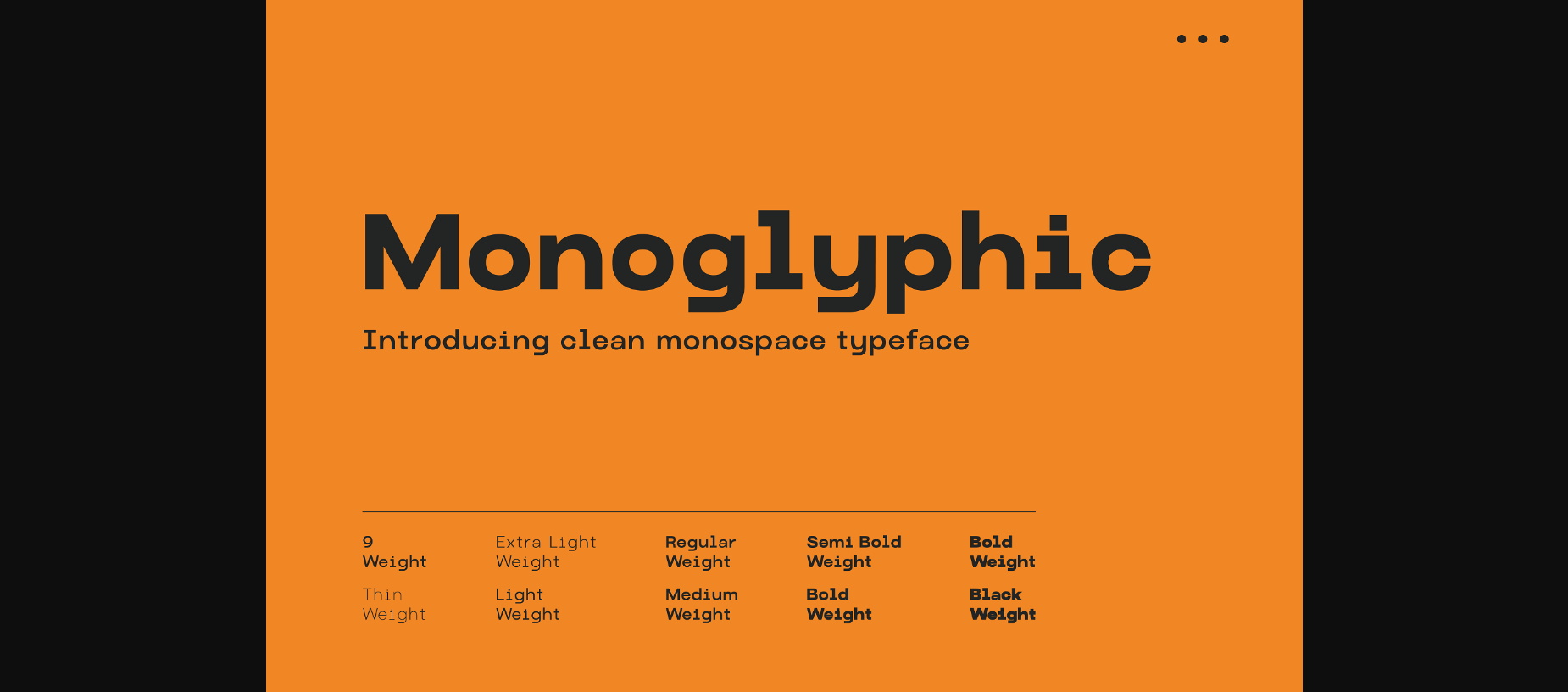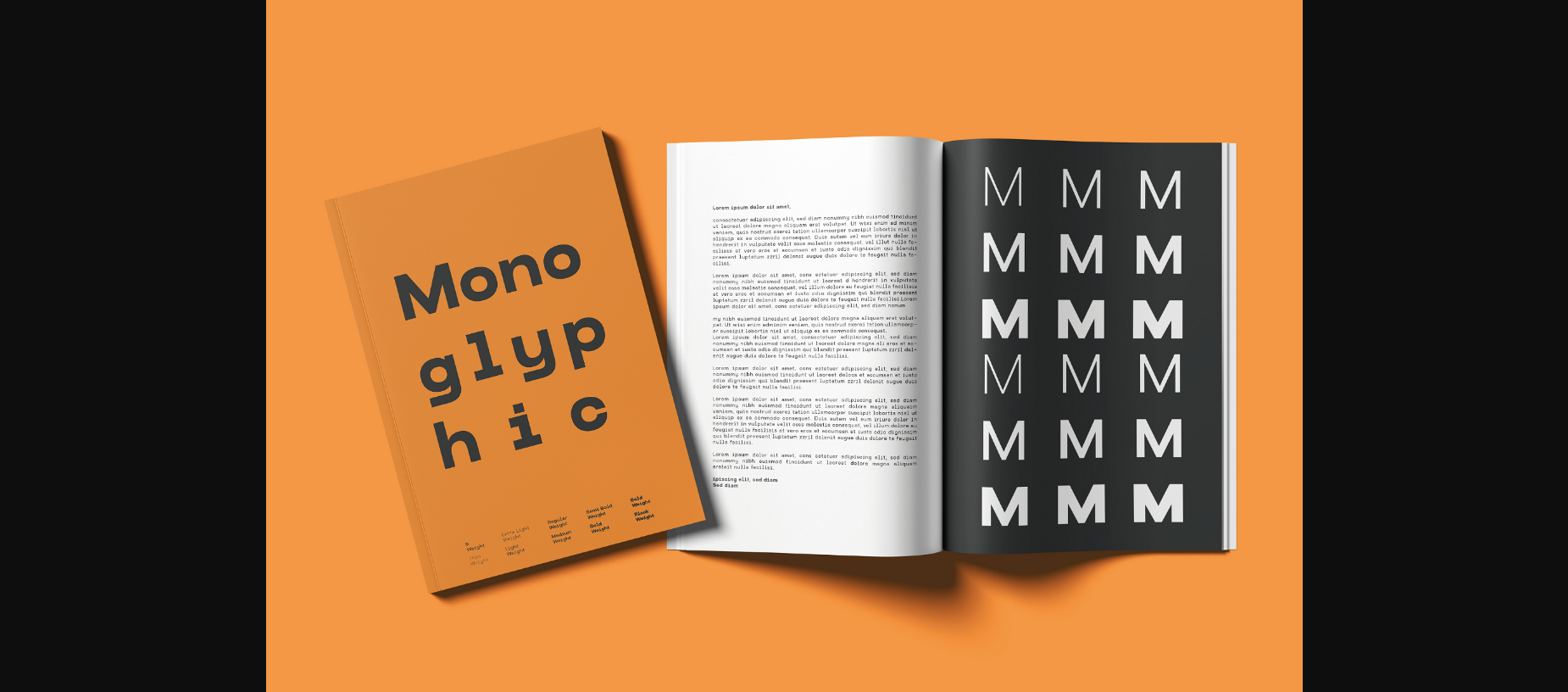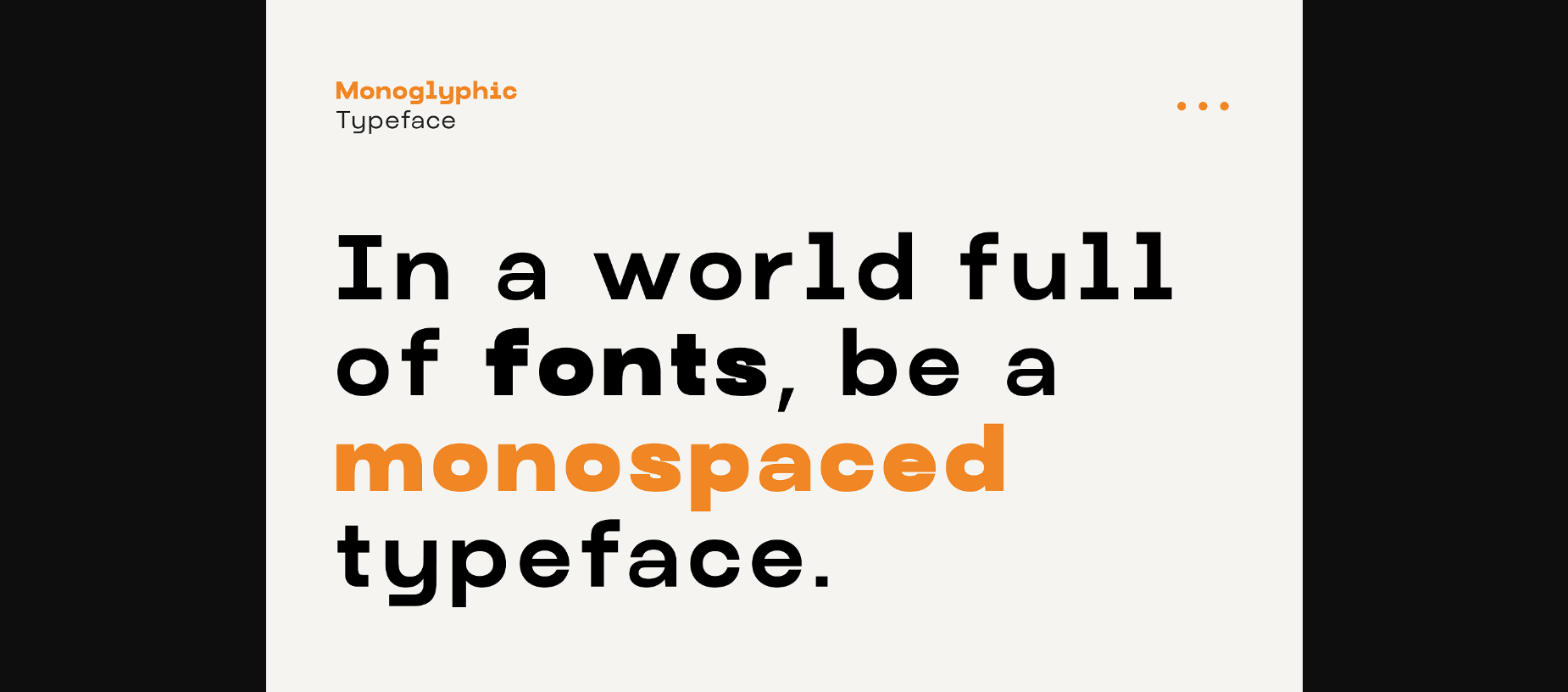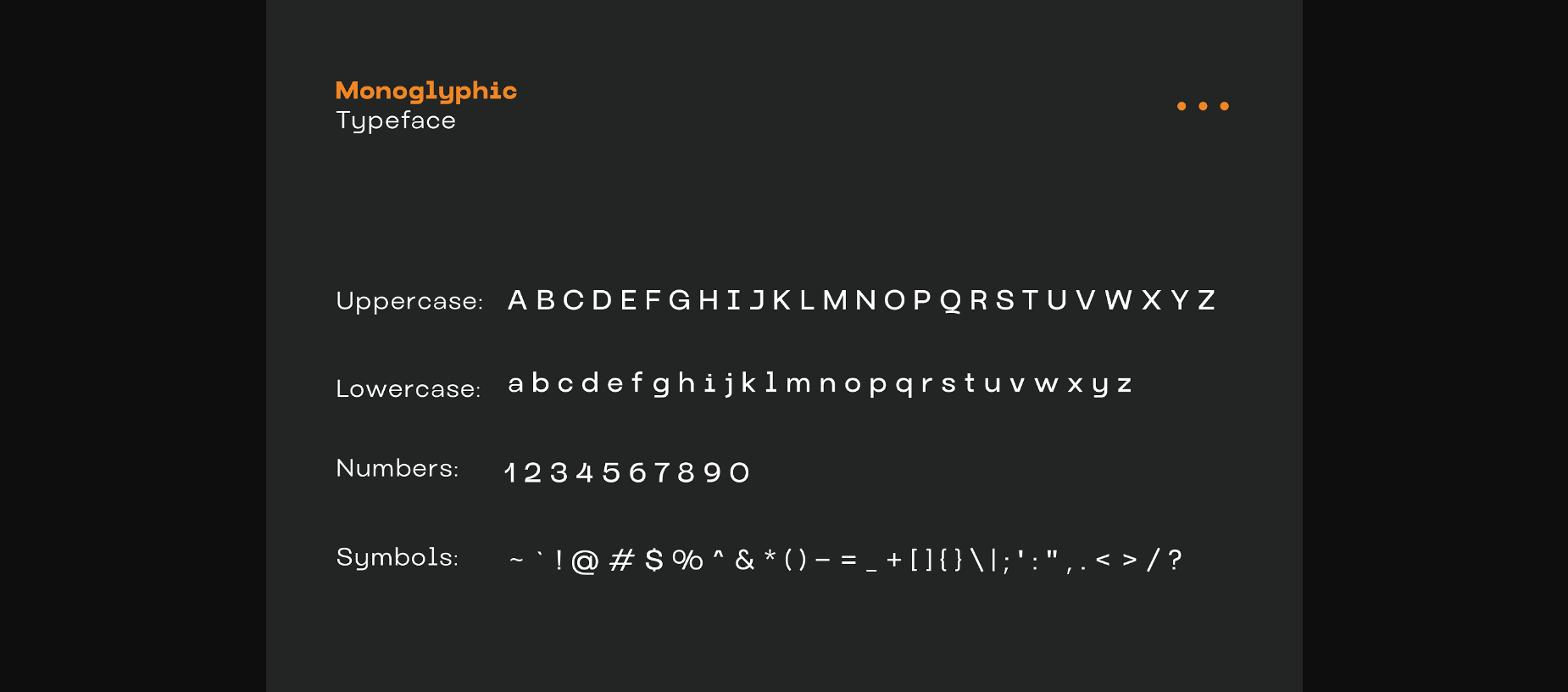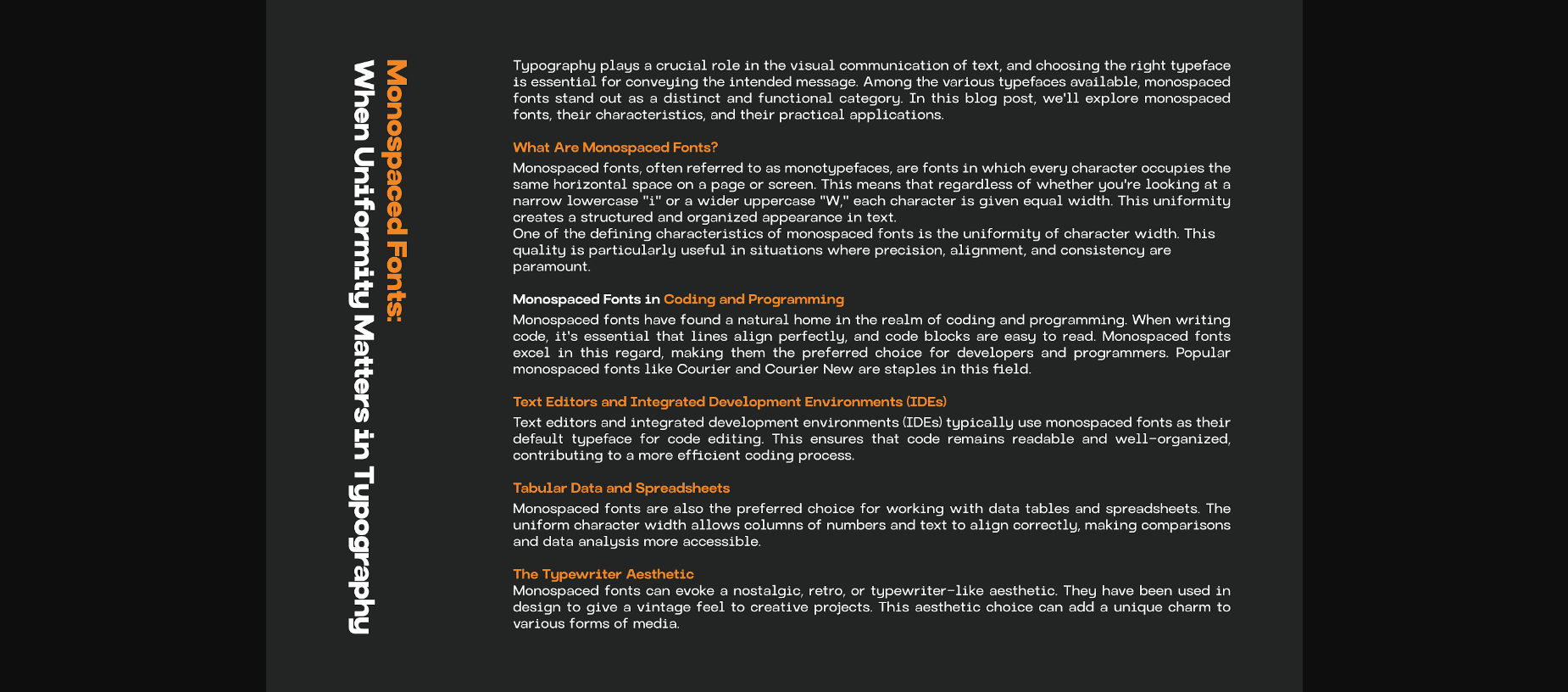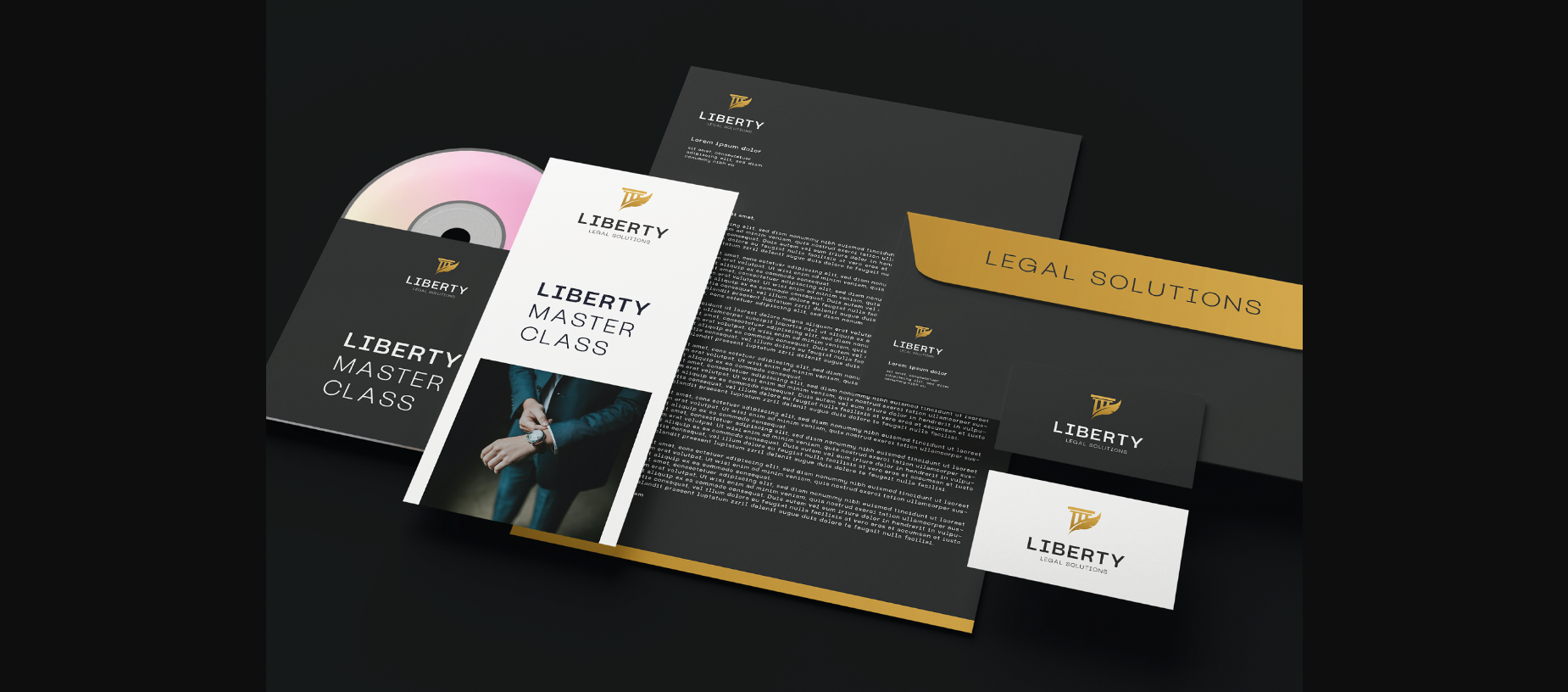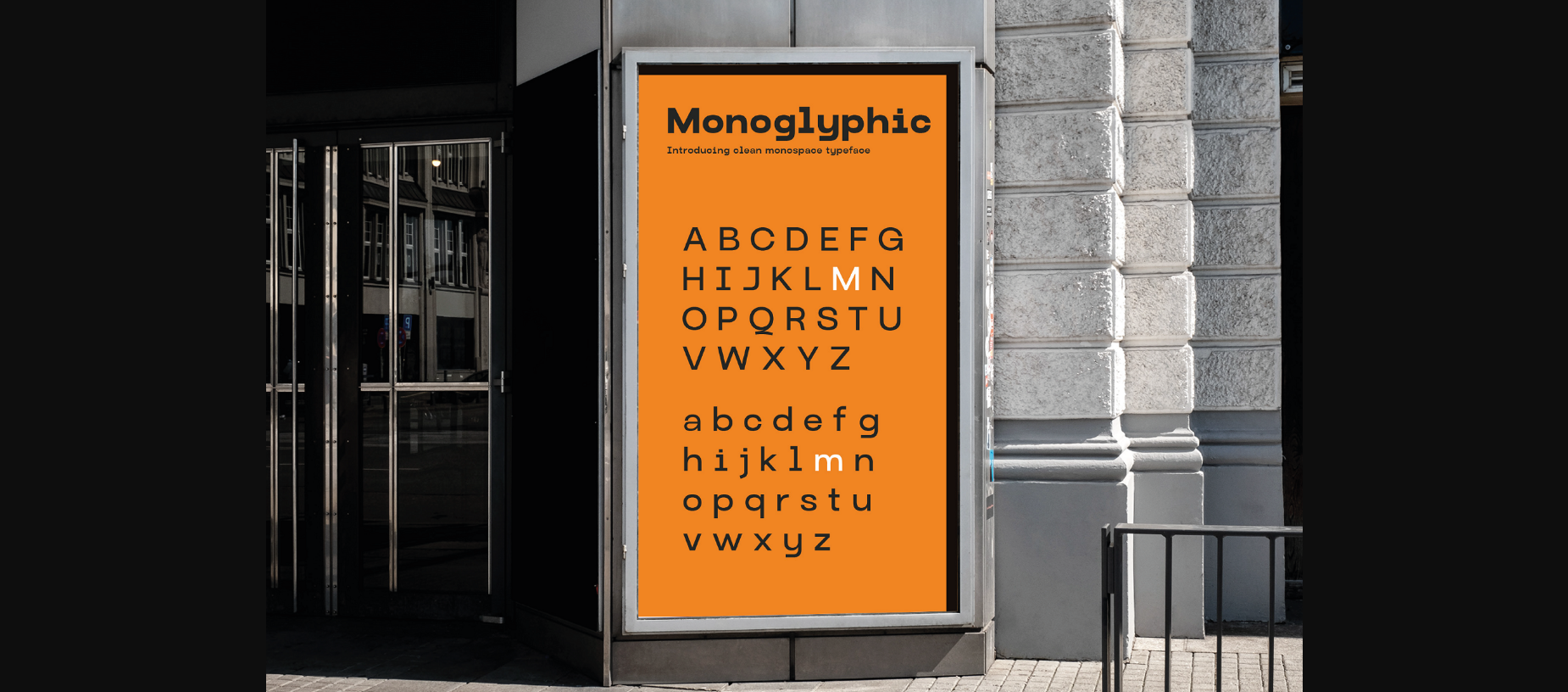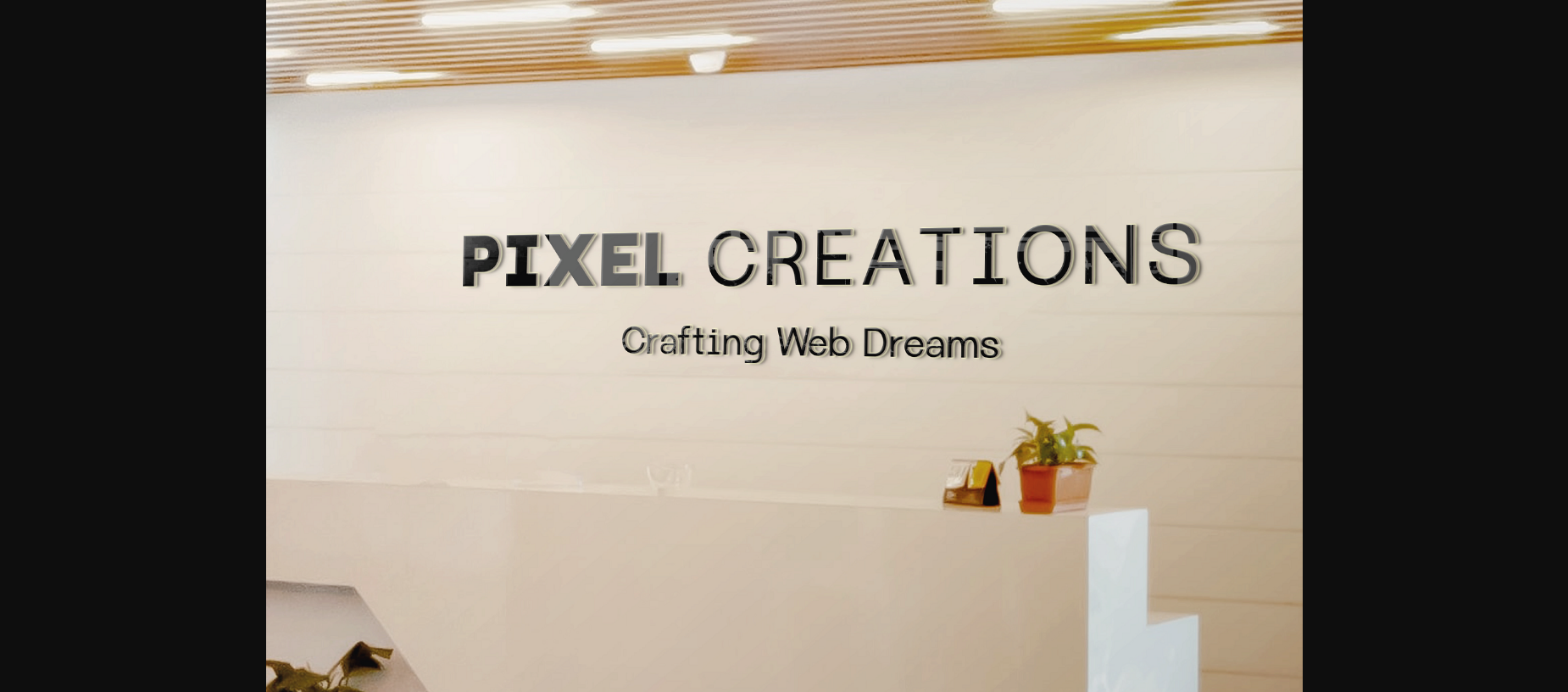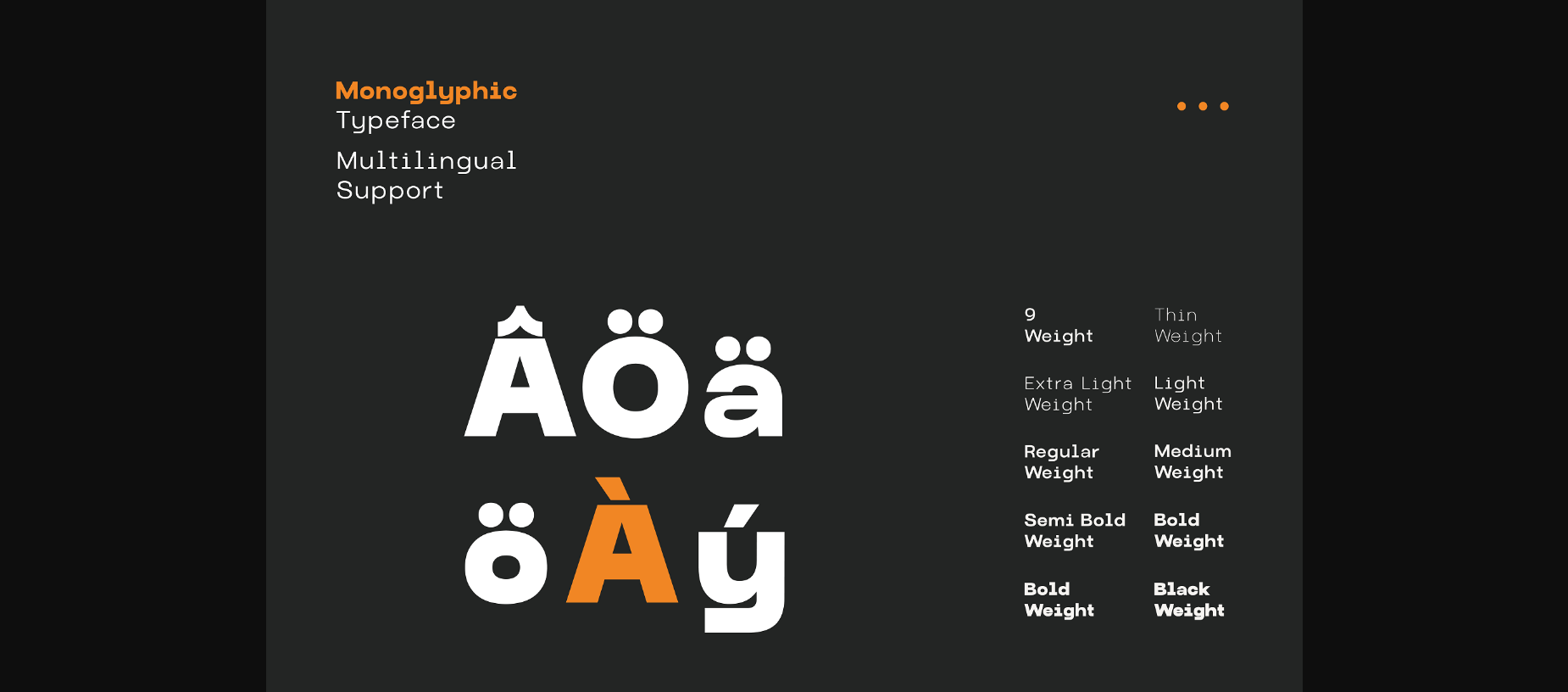
Monoglyphic Font
About Monoglyphic Font
Introducing Monoglyphic, the epitome of clarity in a world of design chaos!
Crafted with meticulous attention to detail, this monospace typeface marries simplicity with sophistication, offering a clean and consistent look that’s perfect for both design aficionados and minimalist enthusiasts.
Every character stands in harmonious alignment, ensuring your content is not only readable but also aesthetically pleasing. Whether you’re coding a new website, designing a technical document, or creating a modern piece of digital art, Monoglyphic guarantees precision and elegance in every stroke.
Simplify, streamline, and shine with Monoglyphic!